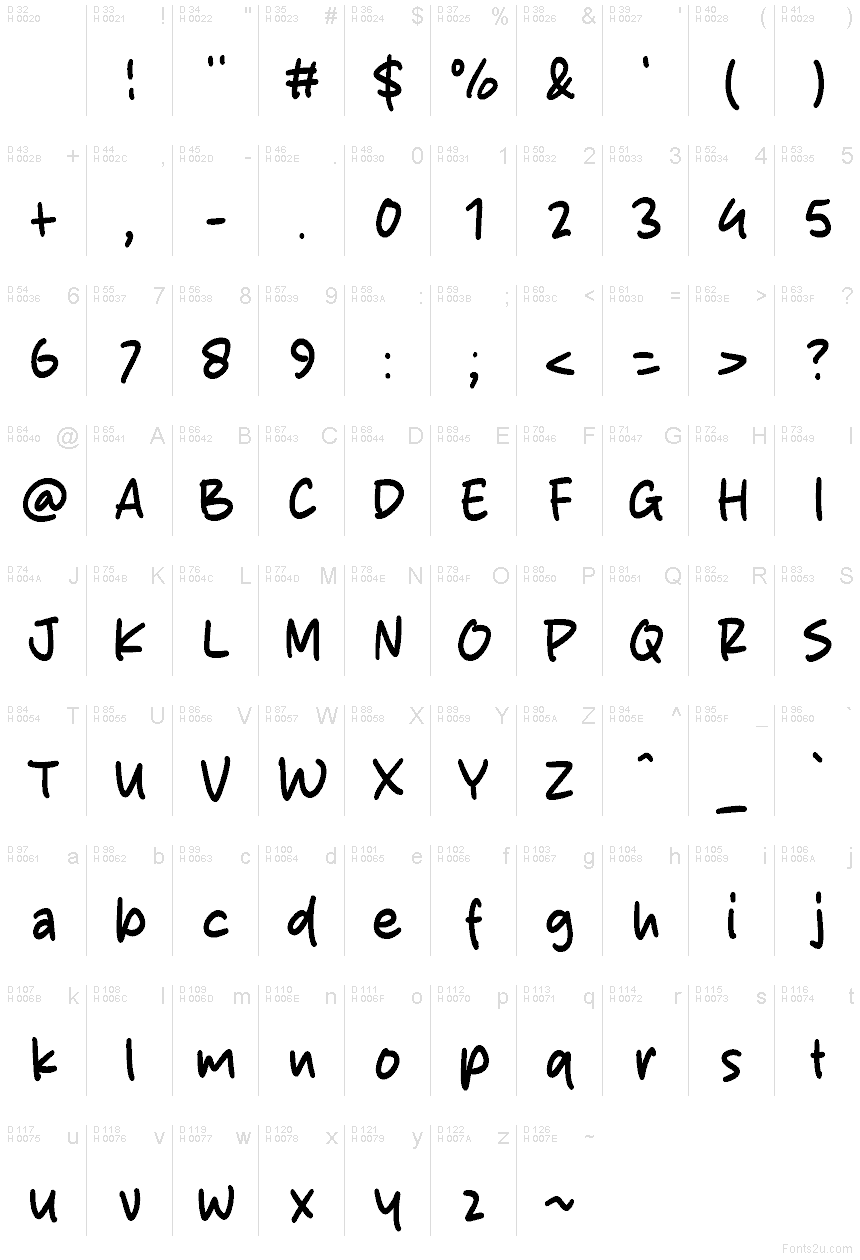
Gerald Script
Gerald Script font by Origin Type is a free handwritten script typeface that feels like it was drawn with a smooth, fat marker on fresh paper. Rounded curves, loose connections, and a gentle bounce give it an easygoing, human tone without getting messy or hard to read. It has just enough weight and consistency to hold up in bold headlines while still looking casual and friendly.
Using Gerald Script, you can bring a warm, personal touch to social media graphics, quote posts, kids’ book covers, classroom printables, packaging, and greeting cards. This free font shines at larger sizes where its inky texture and playful rhythm can really breathe. Try pairing Gerald Script with a clean geometric sans for supporting text to keep layouts lively but clear.